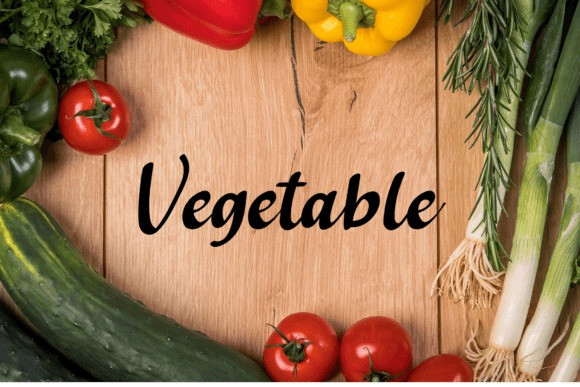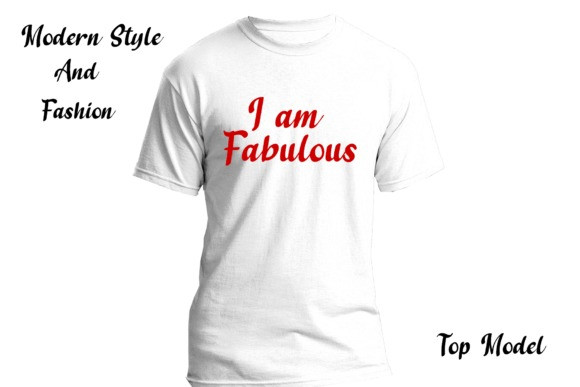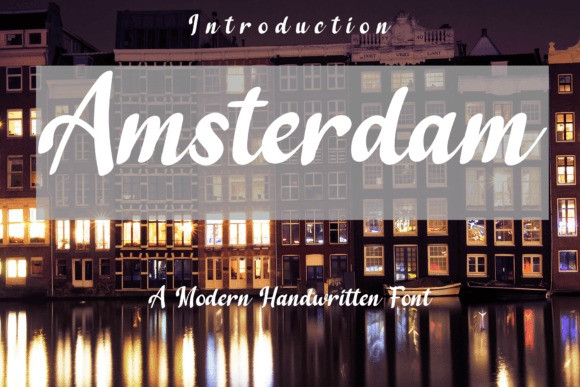
Amsterda Modern Script Font
Amsterda Modern Script Font, is a delicate handwritten font carefully crafted for a cool and unique design. This font can be used to write letters, invitations, food products, titles and more.